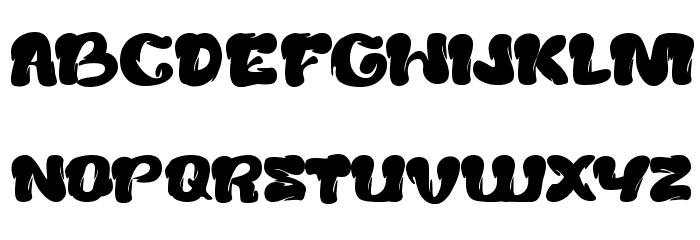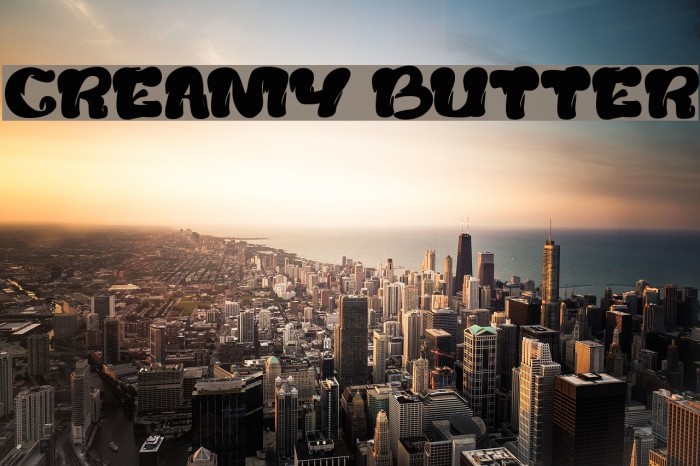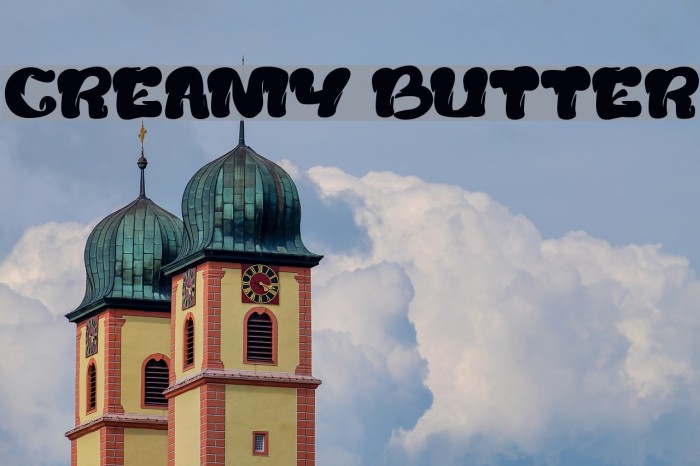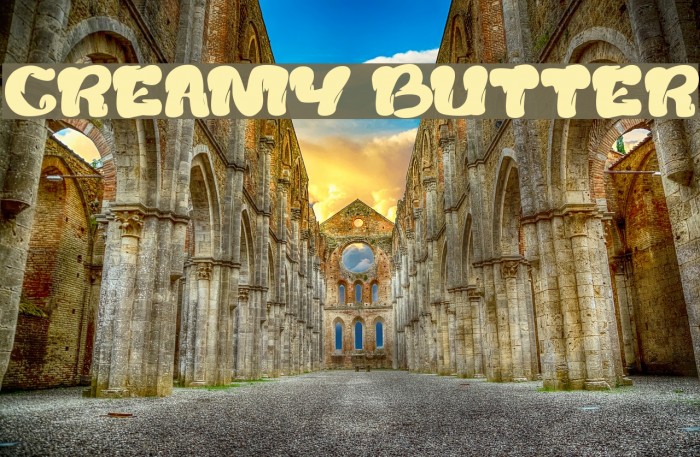
creamy butter Font
This font features a bold and playful design with thick, rounded strokes that give it a soft and friendly appearance. The letters are heavily weighted, creating a sense of fun and whimsy. The overall look is reminiscent of a retro or vintage style, with a modern twist that makes it suitable for contemporary designs. The characters are closely spaced, enhancing the compact and cohesive feel of the text. This font is ideal for projects that require a touch of personality and charm, such as children's books, playful branding, or eye-catching headlines.
A bold, playful font with thick, rounded strokes and a retro-modern style.
- Proposed Projects: Ideal for children's books, playful branding, eye-catching headlines, and retro-themed designs.
- Character Spacing: Tight
- Overall Style: Playful, Retro, Modern
- Use Case: Headlines, Logos, Branding